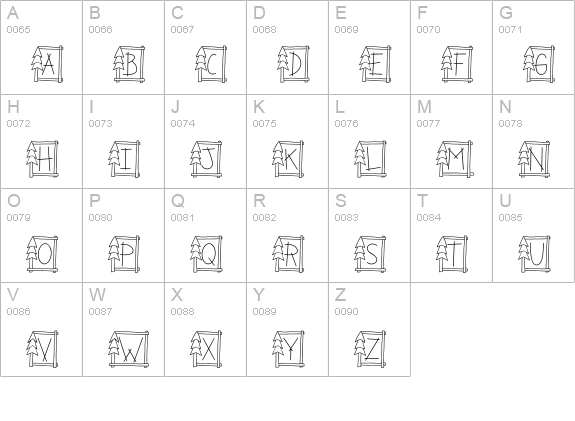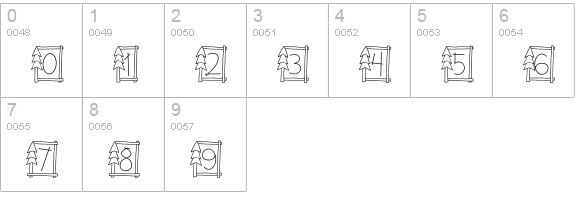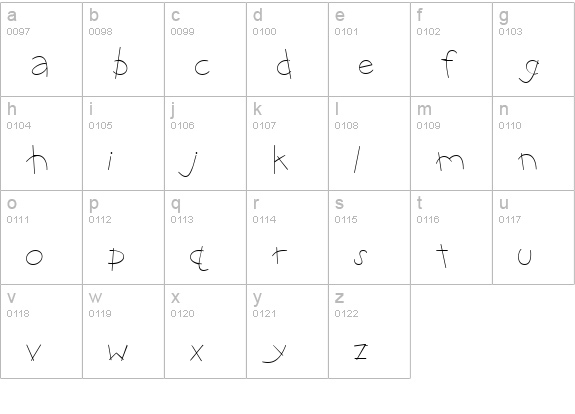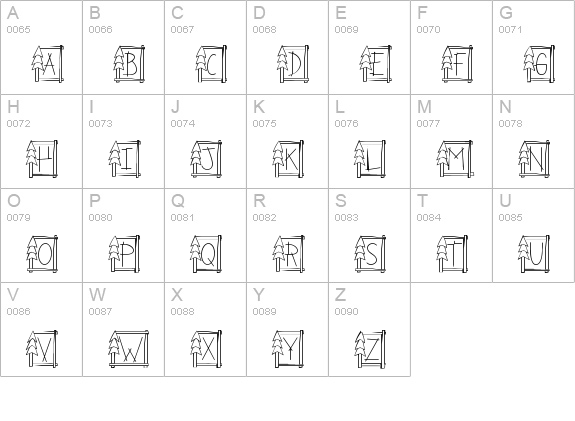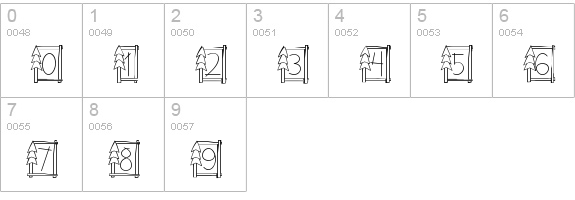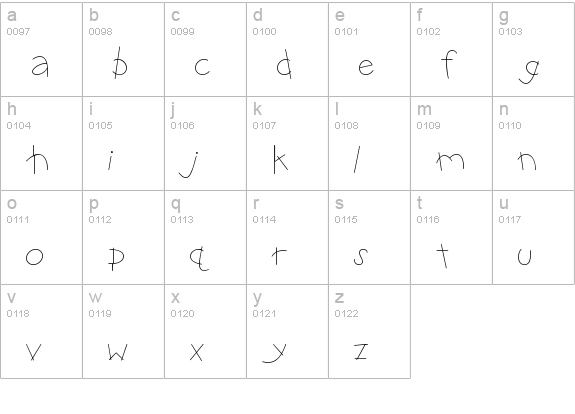
CK Camp Font Details
Introducing CK Camp font, a playful and energetic typeface that exudes a sense of adventure and exploration. With its rounded edges and whimsical charm, CK Camp is perfect for adding a touch of fun to any project. Whether you're designing a children's book, creating a logo for a summer camp, or crafting a poster for an outdoor event, CK Camp is sure to bring a smile to your audience's face. What's even better is that CK Camp is available for free download at FontsMarket.com! Yes, you read that right - this delightful font can be yours at no cost, allowing you to unleash your creativity without breaking the bank. So why wait? Download CK Camp today and let your imagination run wild with this charming and versatile typeface.